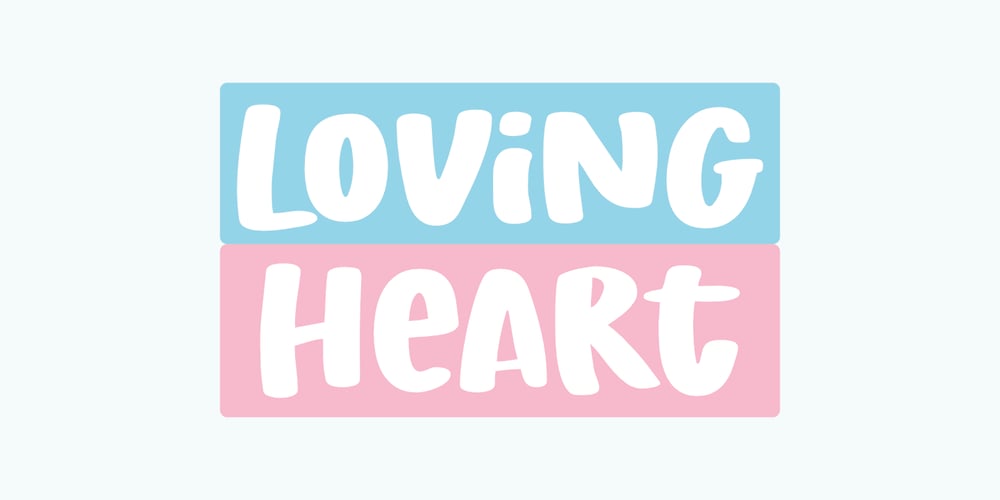
Loving Heart Font Family was designed by Aldy Sidik and published by Epiclinez. Loving Heart contains 1 styles and family package options. Loving Heart is a simple, fun, and relaxed handwritten font. Whether you’re using it for crafting, digital designing, or apparel, it’s lovely.